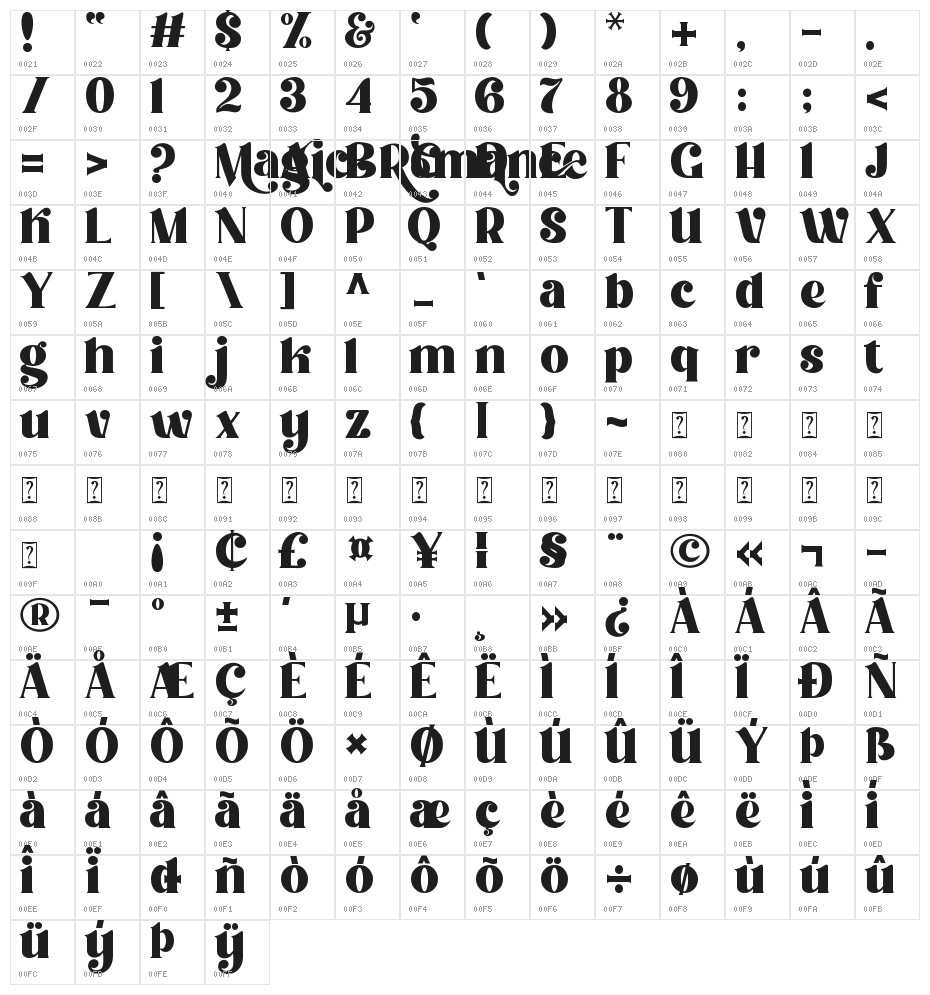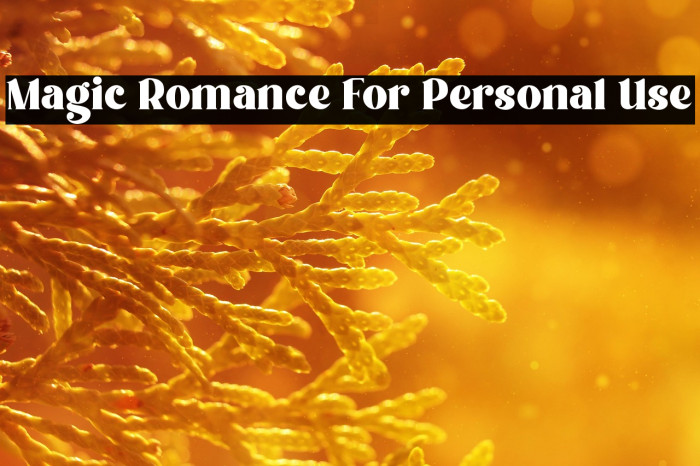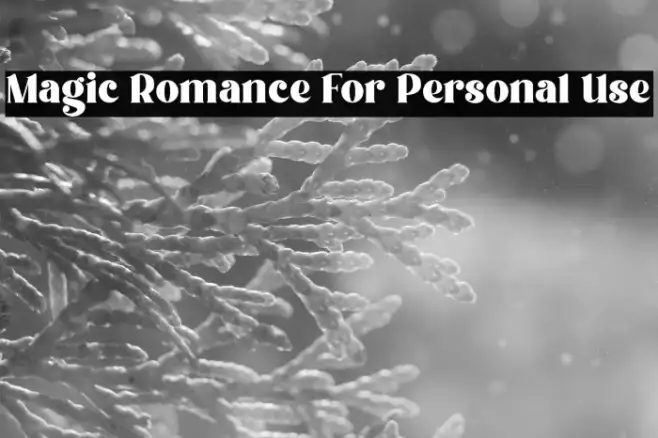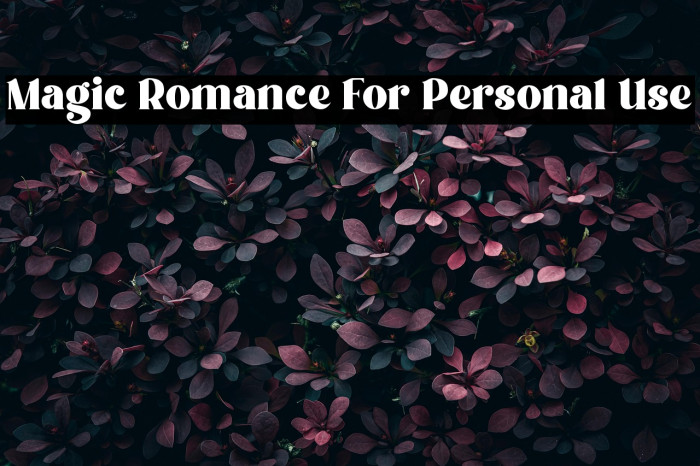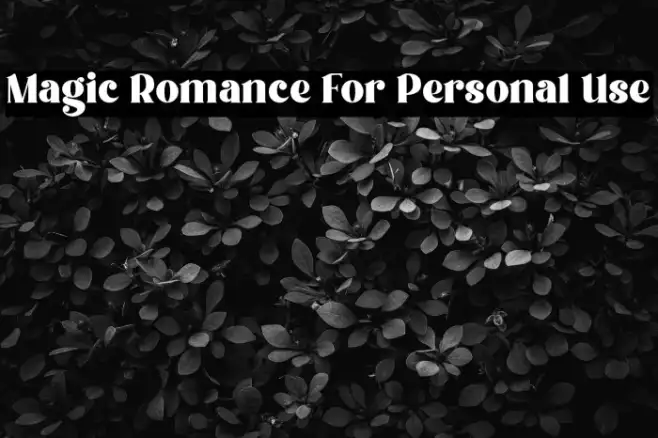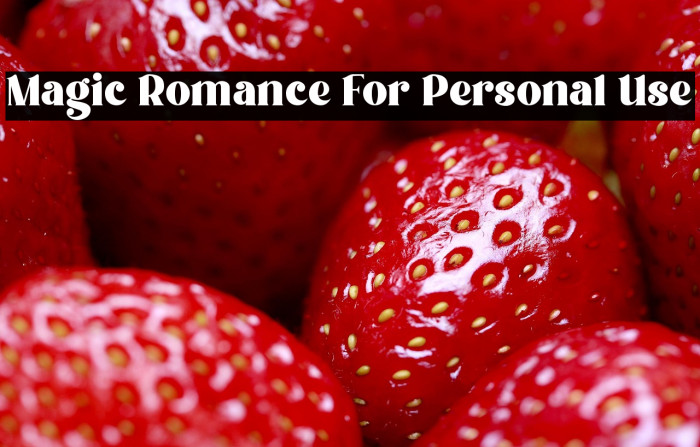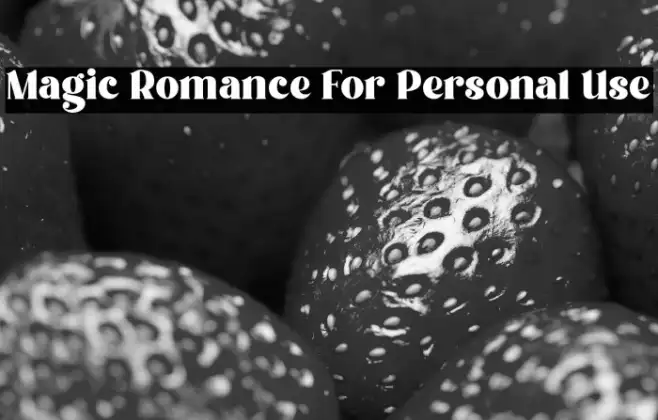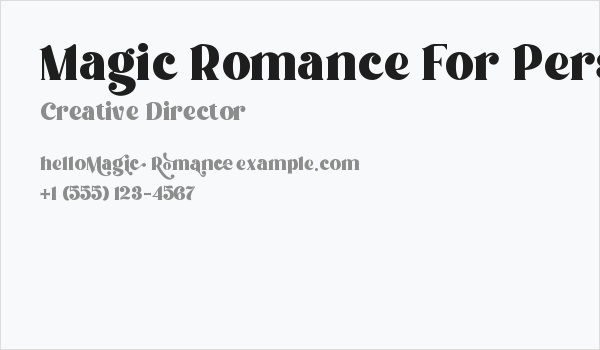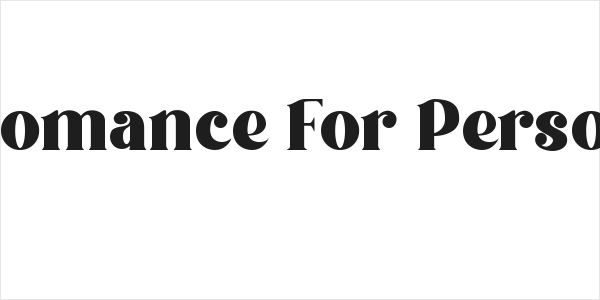
Magic Romance For Personal Use Font
Magic Romance For Personal Use Description
This font features a bold and decorative style with high contrast between thick and thin strokes. The uppercase letters exhibit a strong presence with unique serifs and flourishes, giving them a dramatic and elegant appearance. The lowercase letters maintain a consistent style, with rounded forms and distinctive curves that add a touch of sophistication. The numerals are equally bold, ensuring readability while maintaining the decorative theme. Special characters are crafted with the same attention to detail, making them suitable for a variety of design applications.
| Proposed Projects | Ideal for wedding invitations, branding projects, headlines, and any design requiring a touch of elegance and drama. |